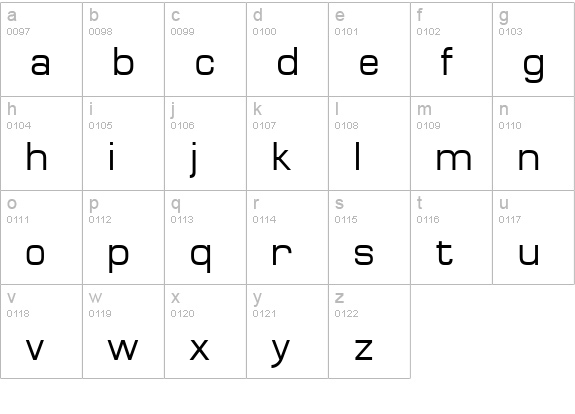
Minima SSi Font Details
Minima SSi font is a sleek and modern typeface that exudes simplicity and elegance. With its clean lines and minimalistic design, this font is perfect for a wide range of design projects, from branding to web design. The balanced letterforms and subtle curves give Minima SSi a timeless appeal that will make your text stand out. What's even better is that Minima SSi is available for free download at FontsMarket.com. This means you can easily access and use this stylish font in your projects without any cost. Whether you're creating a professional presentation, designing a website, or working on a creative project, Minima SSi font is a versatile choice that will elevate your work to the next level. Don't miss out on the opportunity to enhance your designs with this fantastic font, download Minima SSi today!